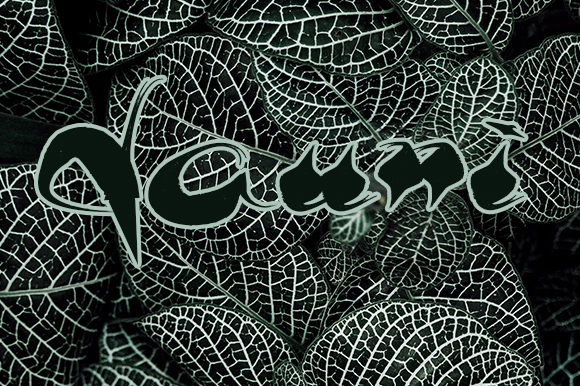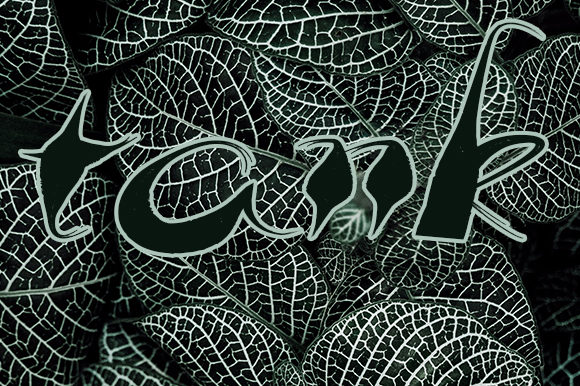
Introduction to Sheya Font
Sheya is a fun and friendly display font.
This font is the ideal font for adding an adventurous and authentic feel to your next design idea .
Key Features of Sheya Font
Why Choose Sheya Font?
Sheya Font offers exceptional quality and versatility, making it a valuable addition to your design toolkit. Whether you’re creating for personal projects or commercial use, Sheya Font delivers professional results.